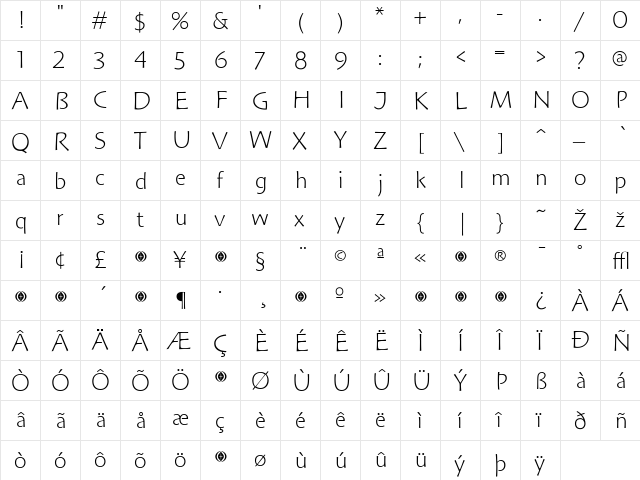
Hoffmann Regular
| Foundry | Designed by Richard Lipton. Produced by The Font Bureau, Inc |
Design Context for Hoffmann Typeface
Hoffmann is a composed and adaptable typeface that performs quietly and consistently across a wide range of design contexts.